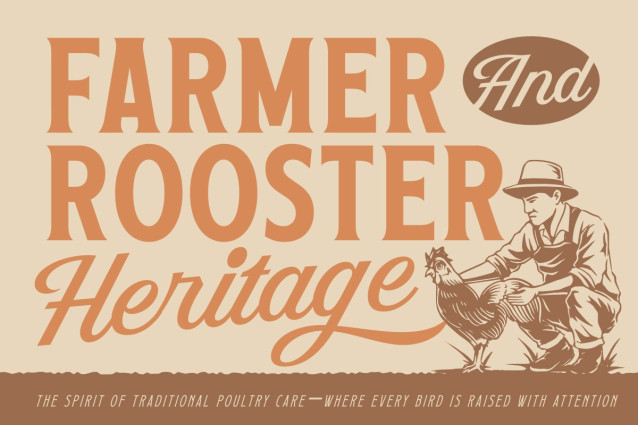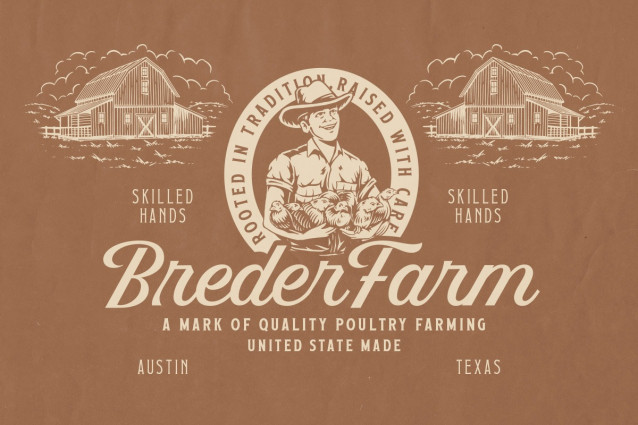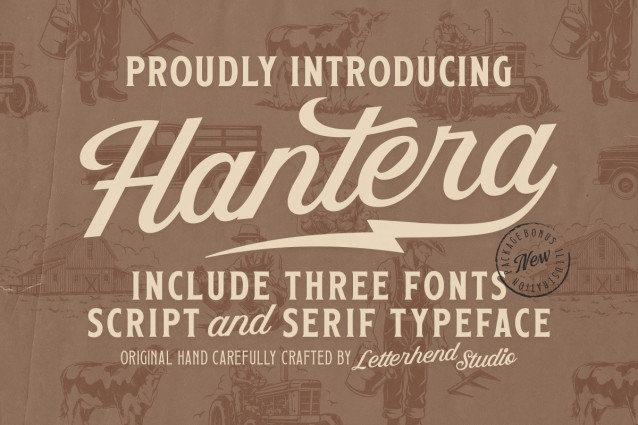
Hantera Font
Hantera Font is a vintage-crafted typeface trio that blends elegant script curves with sturdy serif structure, creating a warm old-time charm inspired by classic farm signage and hand-lettered Americana. With its sweeping swash, textured retro tone, and timeless character, this font set brings a nostalgic, rustic spirit to branding, packaging, posters, menus, and heritage-themed projects.